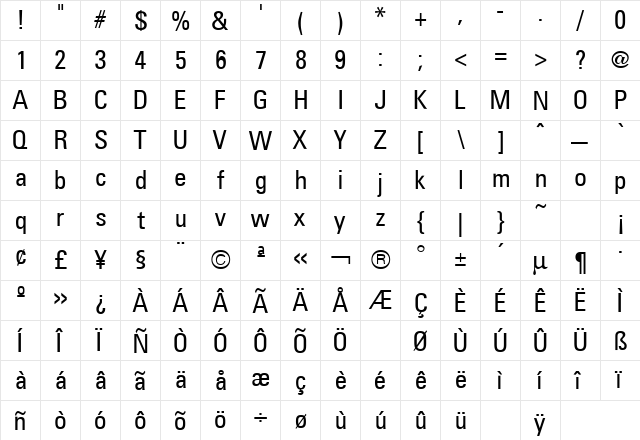
Uniform Condensed Regular Font Preview
Uniform Condensed Regular
Design Context for Uniform Condensed Typeface
Uniform Condensed takes a measured approach to typography — its balanced proportions and neutral character make it a reliable workhorse for both digital and print work. The condensed width makes it efficient for tight spaces without sacrificing legibility.
Pro Tip: Use Uniform Condensed in both headline and body roles to test its range before committing to a single application.